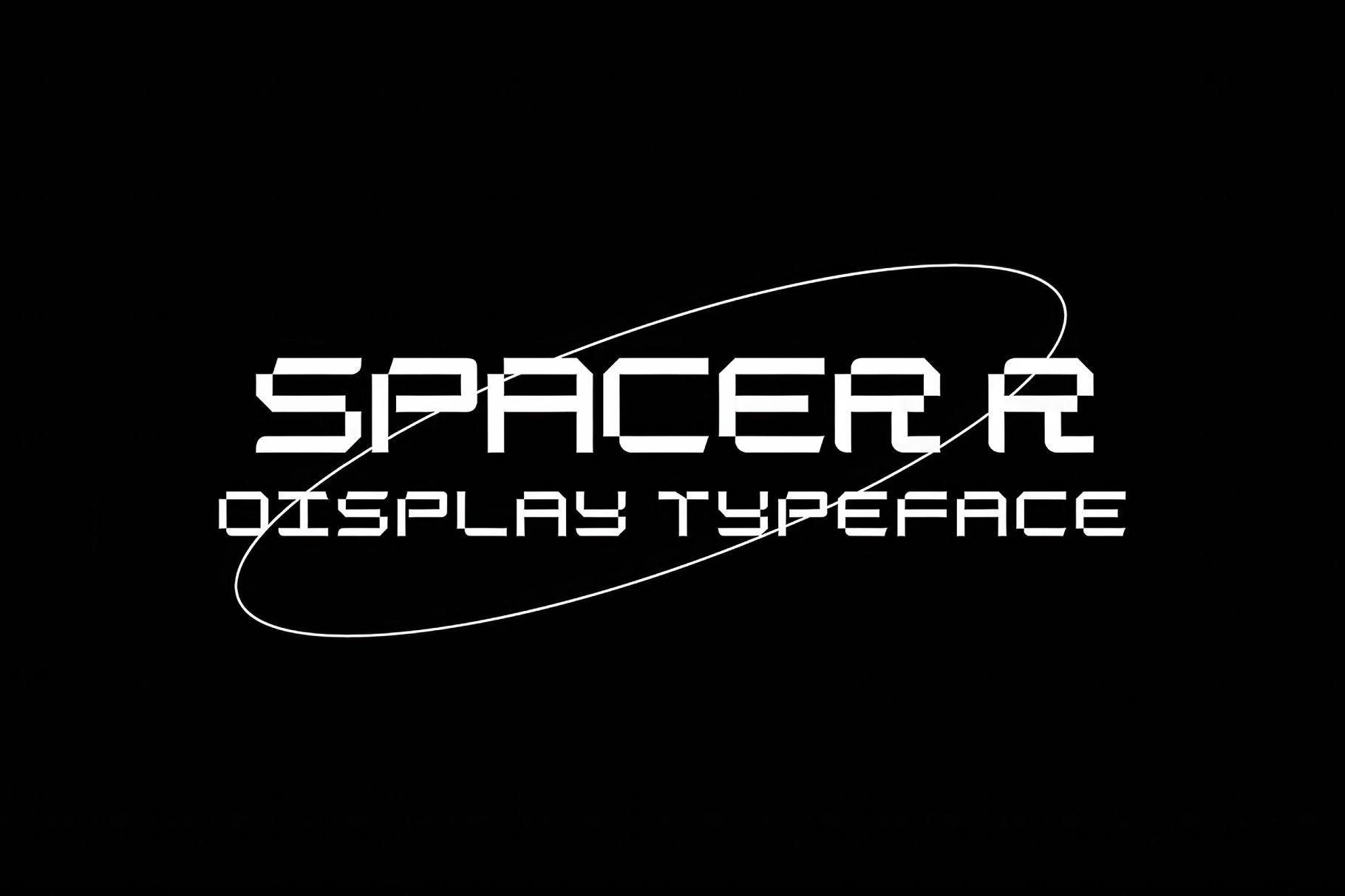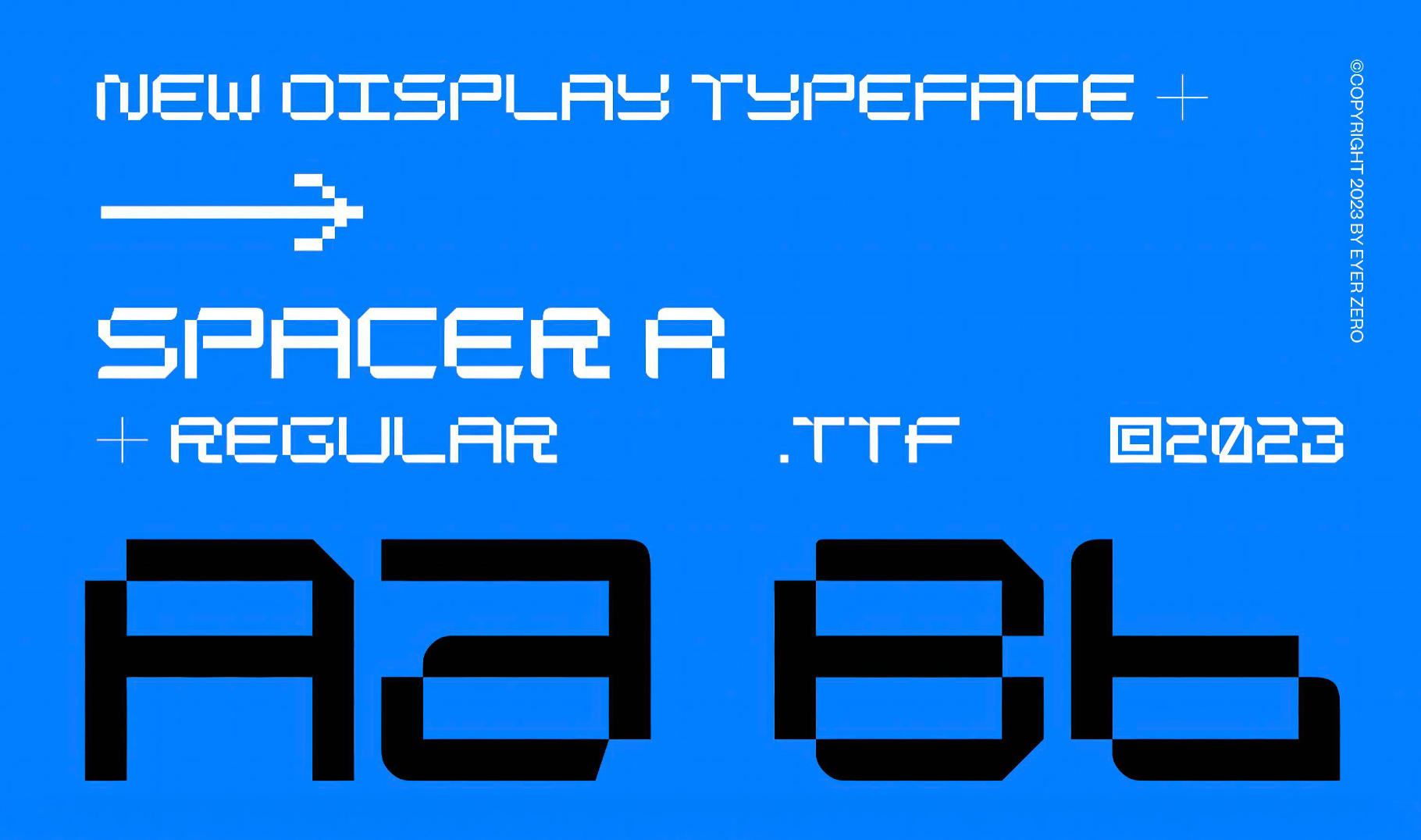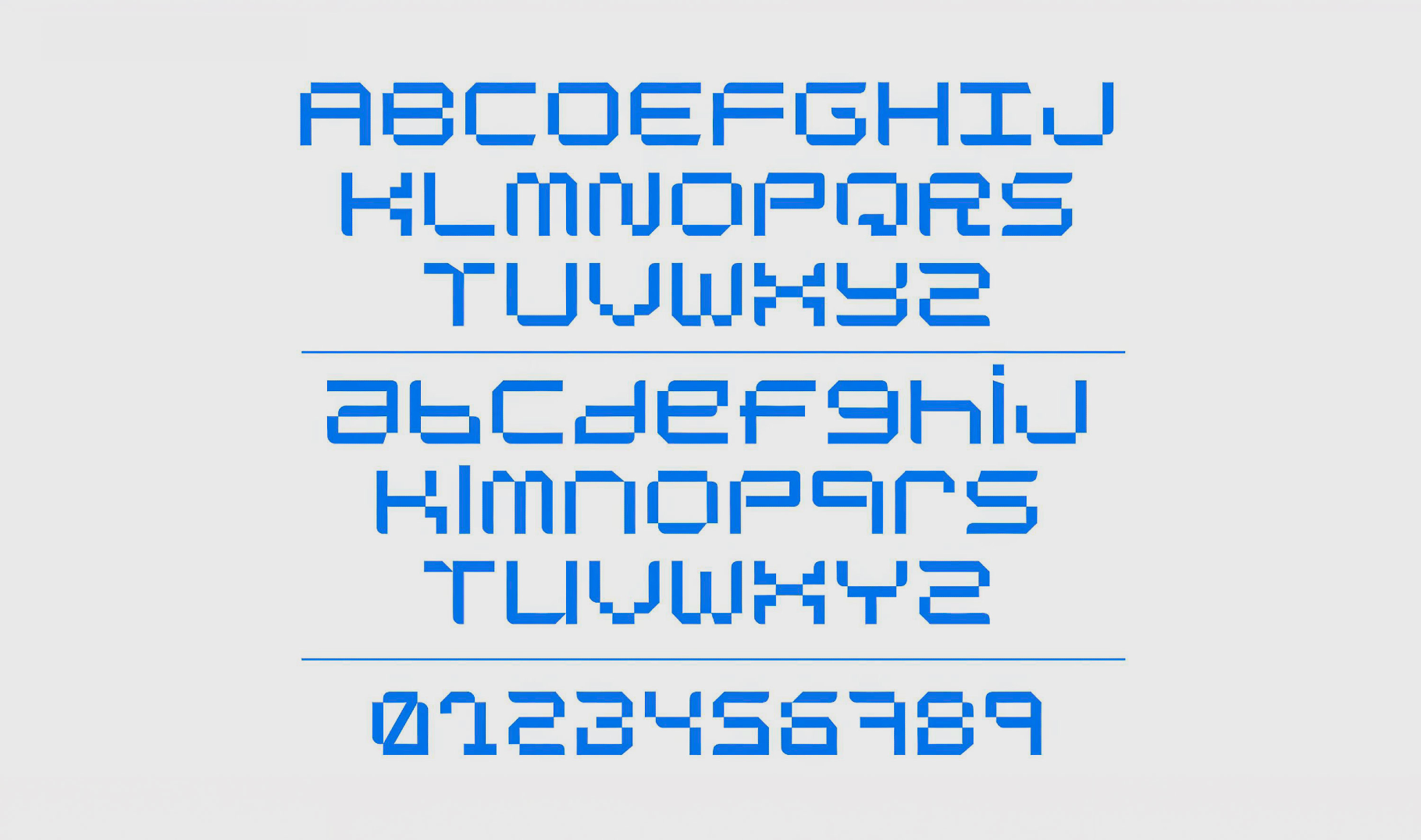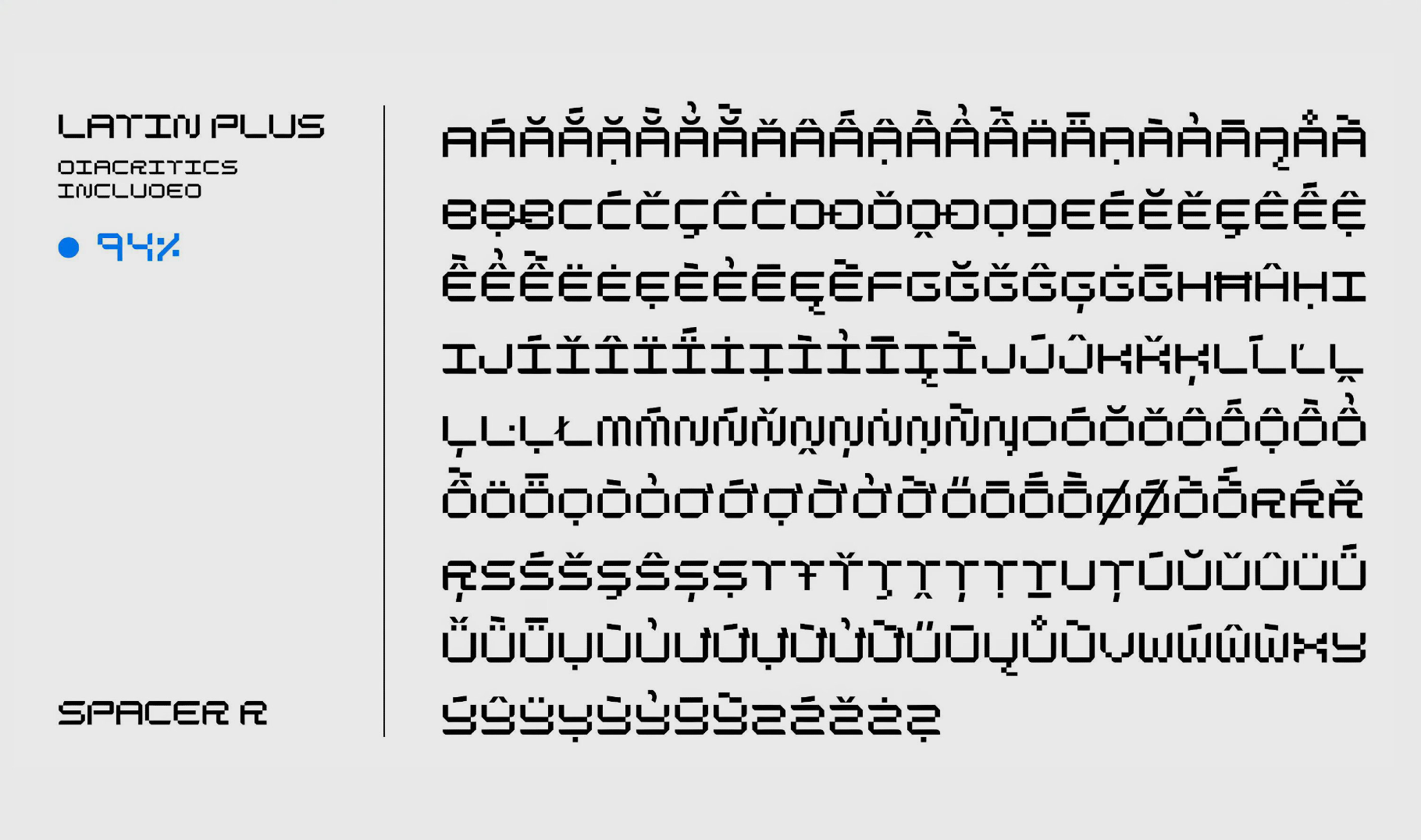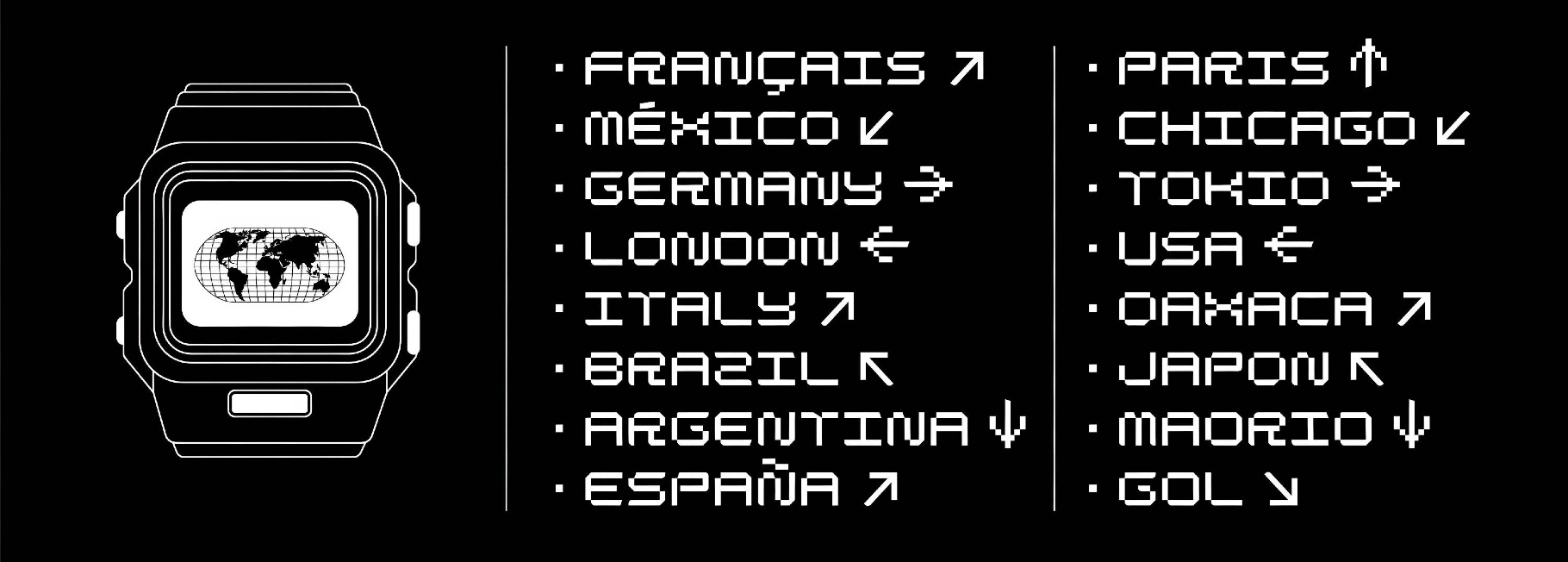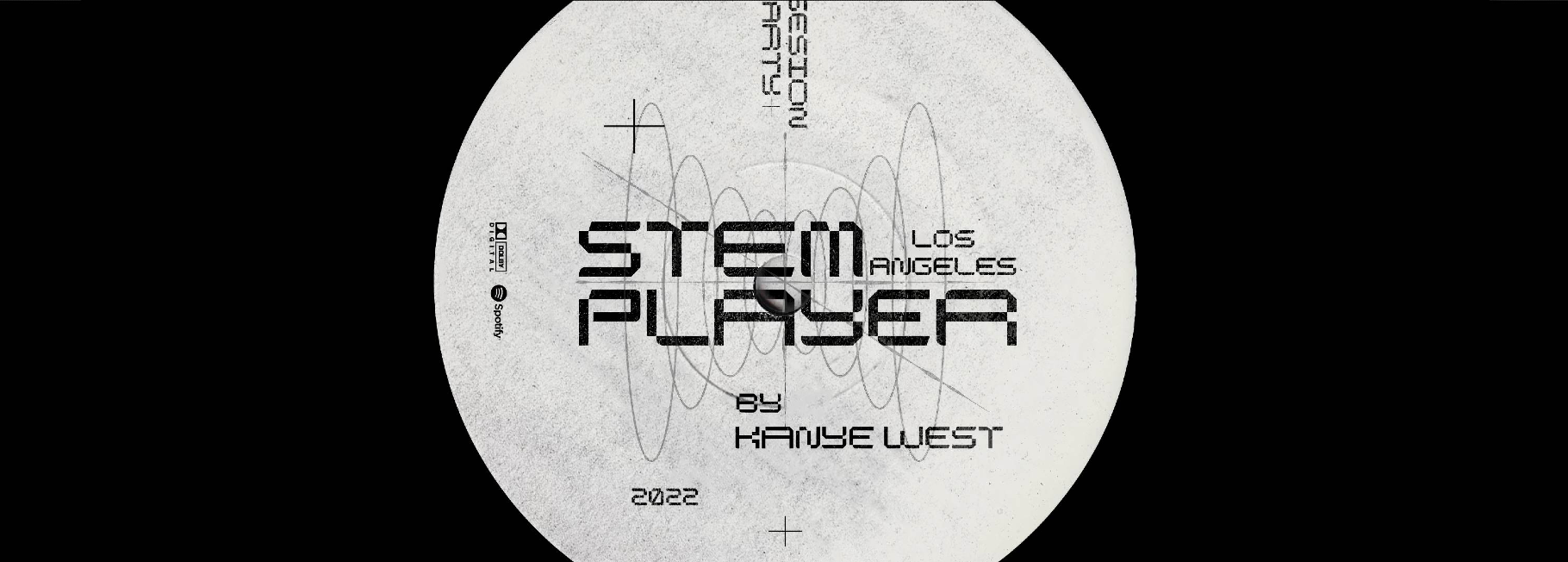
Spacer R | Display Tech Font
SPACER
Precise and steady Spacer R has the controlled impression of old aerospace diagrams and sci-fi films that set somewhere far beyond Earth. Its narrow proportions and disciplined geometry make the font a strong choice for poster titles, tech identities, interface concepts, game screens, album sleeves, motion graphics, packaging, and editorial covers.
- uppercase and lowercase letters;
- numbers, punctuation, dingbats, and symbols;
- multilingual support across an extended Latin script;
- ligatures.